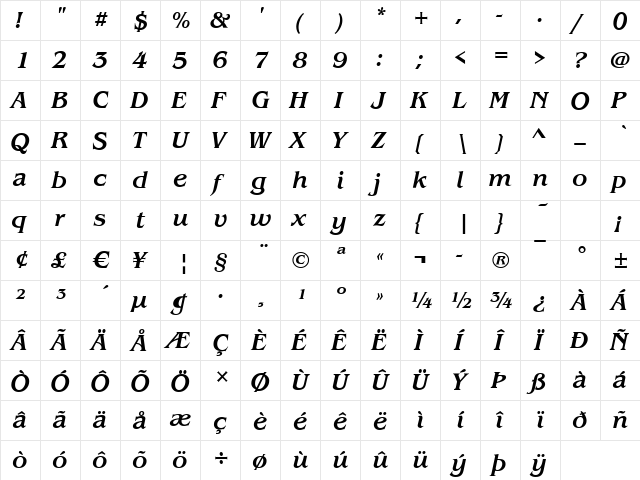
Benjamin MediumItalic
Design Context for Benjamin Typeface
Benjamin offers clean, dependable letterforms without strong stylistic allegiance, making it a practical choice for designers who need flexibility. The slanted form adds forward momentum and visual energy.
Pro Tip: Try Benjamin for annotation and caption copy alongside an upright companion — the contrast in angle creates a dynamic but ordered typographic system.